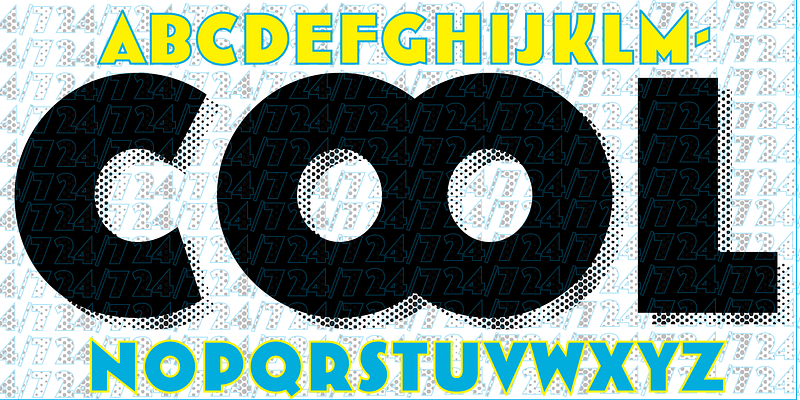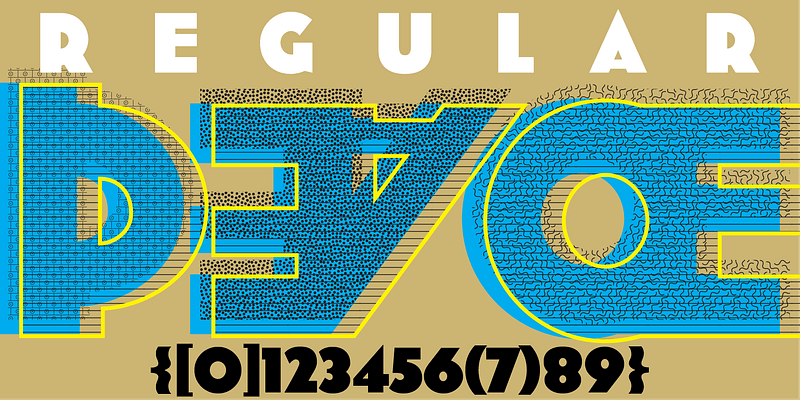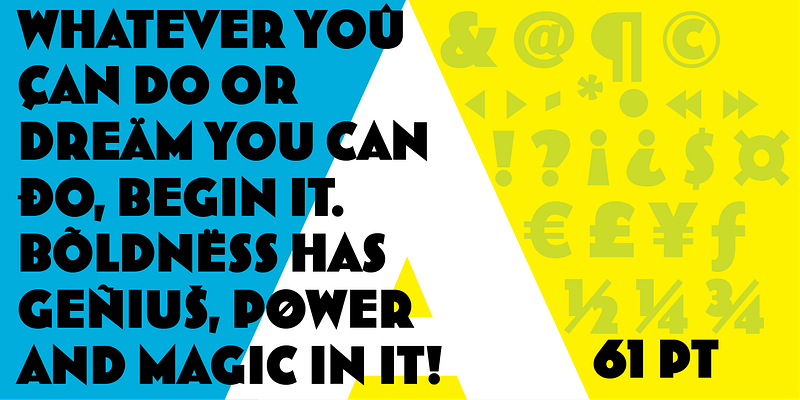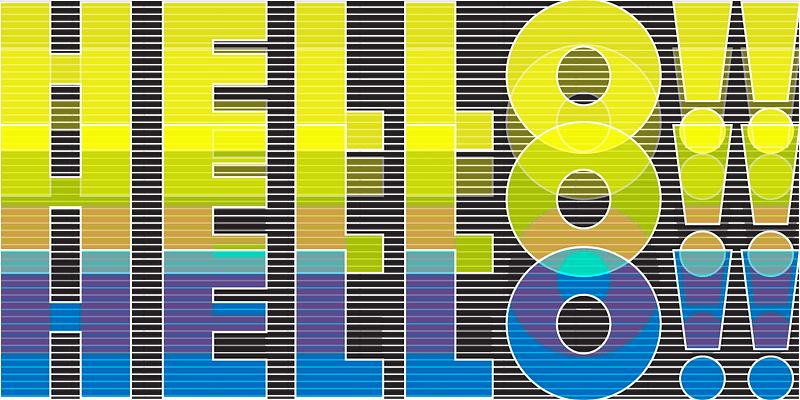
A hand-rendered advertisement for a leather tanner, appearing in a French book from the ’40s, served as inspiration for MVB Bovine. Using its comic sway and slightly exaggerated forms, the typeface delivers bold headlines with a wink and a smile. MVB Bovine is all-caps with a set of discretionary ligatures. It’s available in versions with sharp or rounded corners.